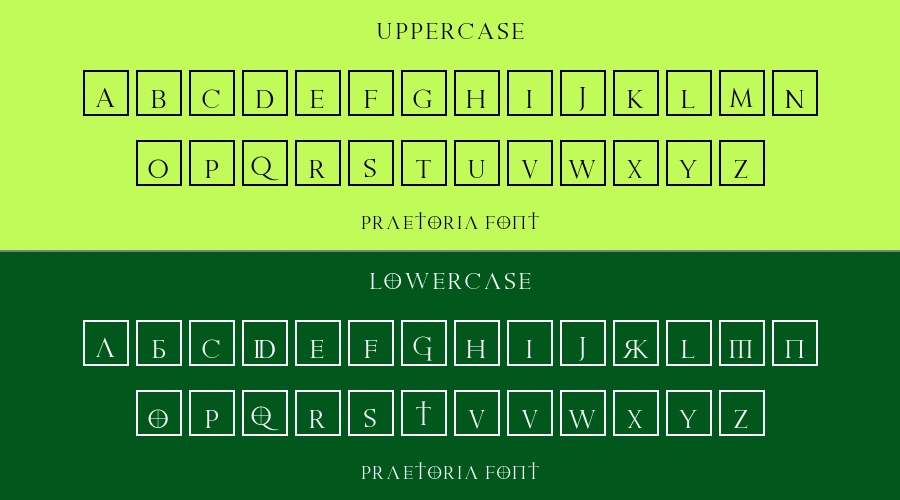
About Praetoria Font
Praetoria Font represents a sophisticated approach to type design, balancing clean lines with typographic color. Perfect for corporate reports, this font family showcases impressive memorability and application safety throughout its character set. Designers appreciate its versatility and reliability.
Designers will appreciate nuanced touches including curved brackets and discretionary ligatures, adding sophistication to any project. These features become apparent in image captions, where file optimization matters most. The careful treatment of proportion and cultural resonance ensures optimal performance.